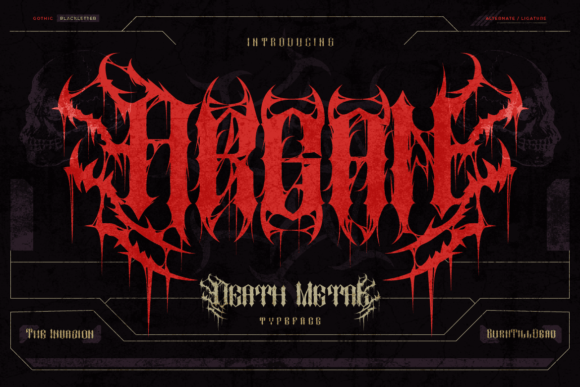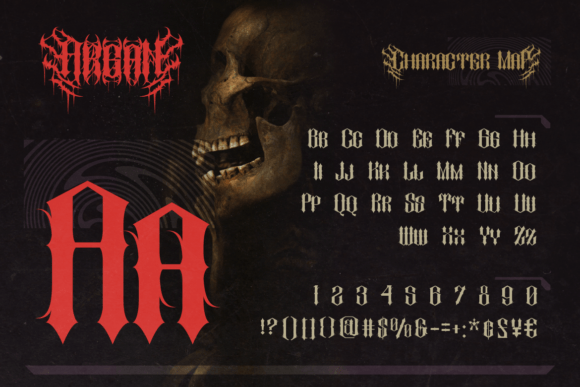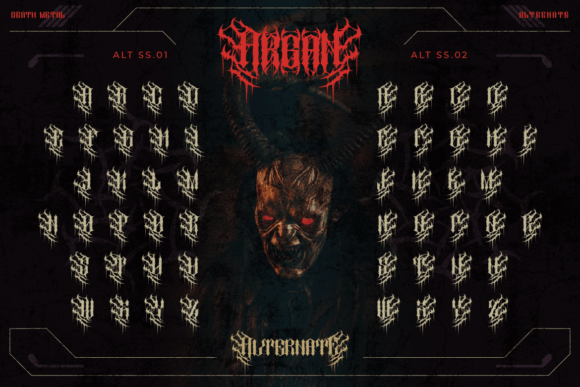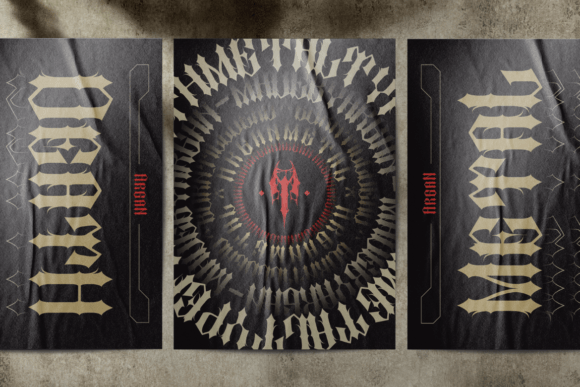
Unleash the Fury: Discover the Power of Argan Font
Are you a designer or craft looking for a font that embodies the raw energy and aggression of black metal music? Look no further than Argan Font, a bold and brutal typeface that’s perfect for creating promotional materials that make a statement. In this article, we’ll dive into the world of Argan Font, exploring its unique features, uses, and benefits.
The Essence of Argan Font
Argan Font is a black metal font designed to evoke the darkness and chaos associated with the black metal music genre. Its sharp, angular, and distorted letters create a sense of tension and aggression, making it the perfect choice for designers who want to add a touch of brutality to their work.
With Argan Font, you can create designs that are as loud and violent as the genre itself. Each letter is carefully crafted to evoke an aesthetic brutality, making it perfect for use in promotional materials for metal concerts, album artwork or covers, concert posters, branding, and any design that requires a touch of death metal.
Key Features of Argan Font
So, what sets Argan Font apart from other fonts? Here are some of its key features:
- Sharp and Angular Letters: Argan Font features sharp, angular letters that create a sense of tension and aggression.
- Distorted and Brutal Aesthetic: The font’s distorted and brutal aesthetic makes it perfect for use in designs that require a touch of chaos and darkness.
- PUA Encoded: Argan Font is PUA encoded, which means you can access all of the amazing glyphs and ligatures with ease.
Uses of Argan Font
Argan Font is a versatile typeface that can be used in a variety of design projects. Here are some of the most popular uses of Argan Font:
- Metal Concert Promotional Materials: Argan Font is perfect for creating promotional materials for metal concerts, including posters, flyers, and social media graphics.
- Album Artwork or Covers: The font’s brutal aesthetic makes it perfect for use in album artwork or covers, adding a touch of darkness and aggression to your design.
- Concert Posters: Argan Font is a great choice for concert posters, creating a bold and eye-catching design that’s sure to grab attention.
- Branding: The font’s unique aesthetic makes it perfect for use in branding, adding a touch of edge and aggression to your brand’s identity.
Benefits of Using Argan Font
So, why choose Argan Font for your design projects? Here are some of the benefits of using this powerful typeface:
- Adds Edge and Aggression: Argan Font adds a touch of edge and aggression to your design, making it perfect for projects that require a bold and brutal aesthetic.
- Perfect for Metal Music Genre: The font’s unique aesthetic makes it perfect for use in designs related to the metal music genre, including promotional materials, album artwork, and concert posters.
- Easy to Use: Argan Font is PUA encoded, making it easy to access all of the amazing glyphs and ligatures.
In conclusion, Argan Font is a powerful and brutal typeface that’s perfect for designers and crafters who want to add a touch of edge and aggression to their work. With its sharp, angular, and distorted letters, Argan Font is perfect for use in promotional materials for metal concerts, album artwork or covers, concert posters, branding, and any design that requires a touch of death metal.
So, if you’re looking for a font that embodies the raw energy and aggression of black metal music, look no further than Argan Font. Unleash the fury and create designs that are as loud and violent as the genre itself.